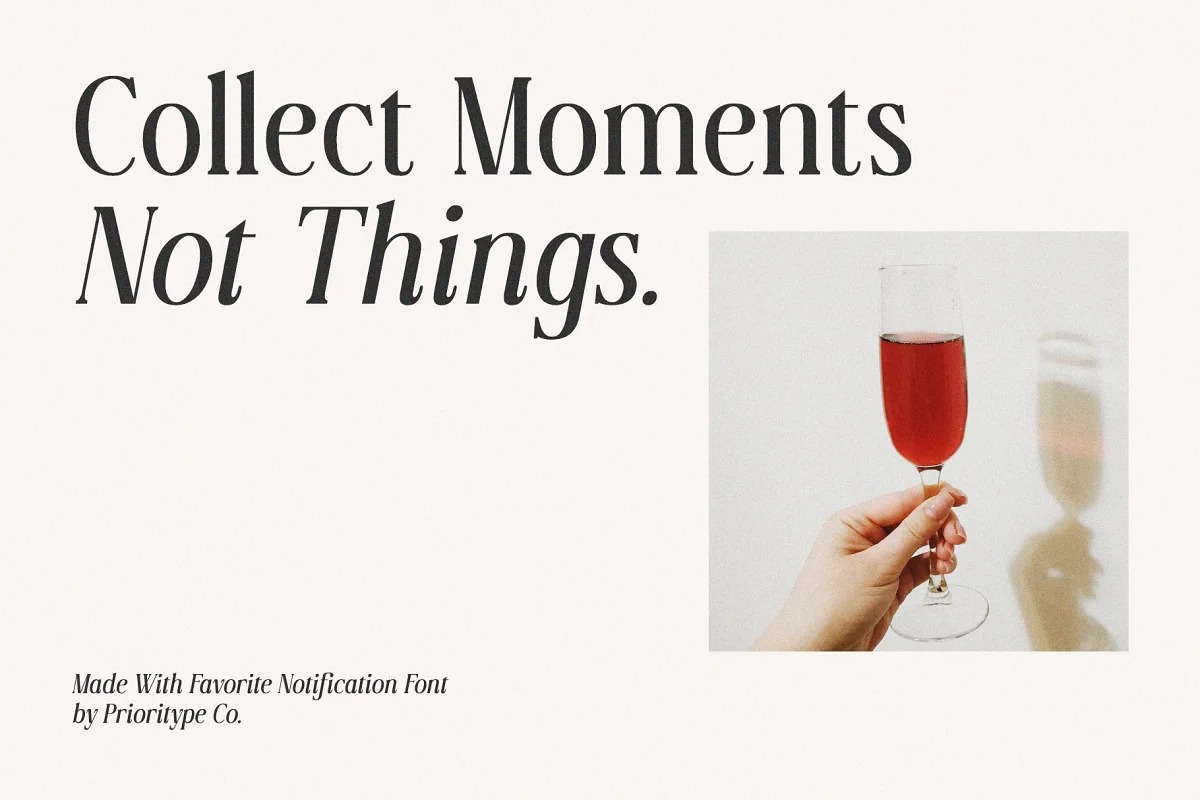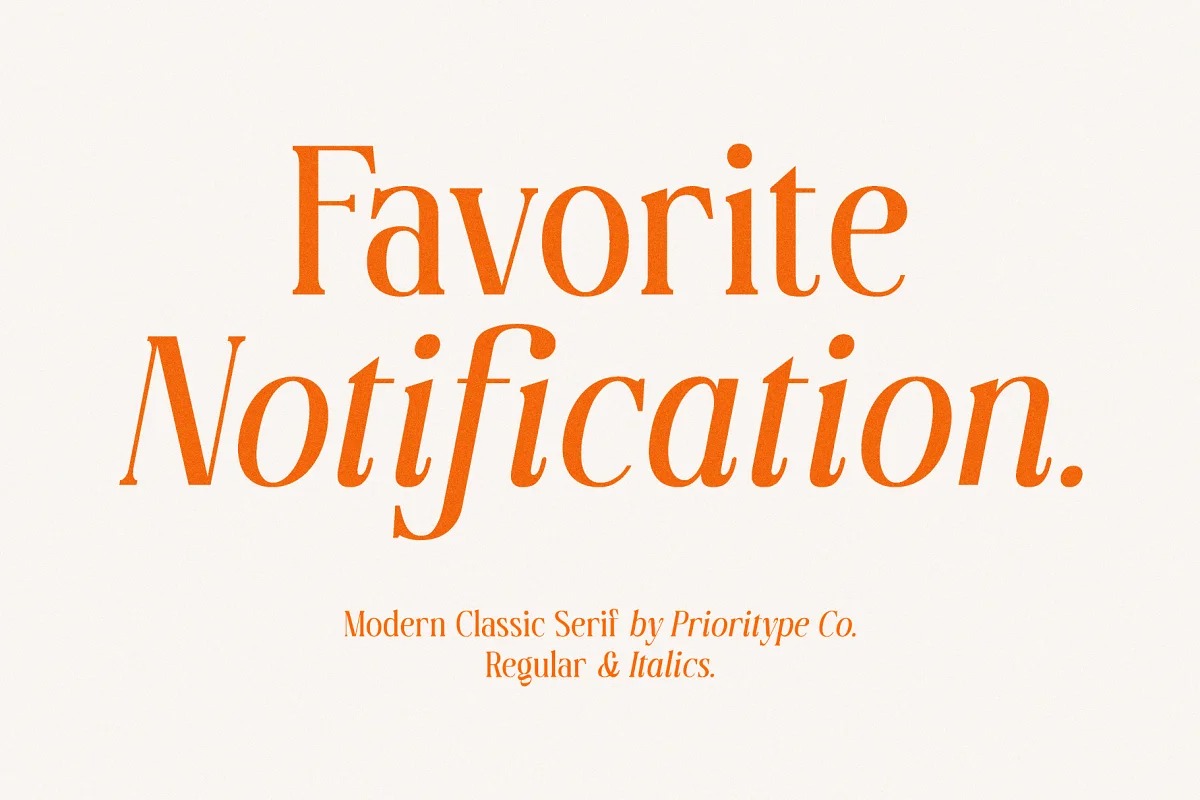
Favorite Notification Font
Favorite Notification Serif Font
This is a condensed serif font created by Prioritype Co with a luxurious style designed very neatly and cleanly, it has many special ligatures that support this font to be more unique.
Favorite Notification has the meaning of love which is highly appreciated and should be held in everyone’s heart as this font concept is made with love.